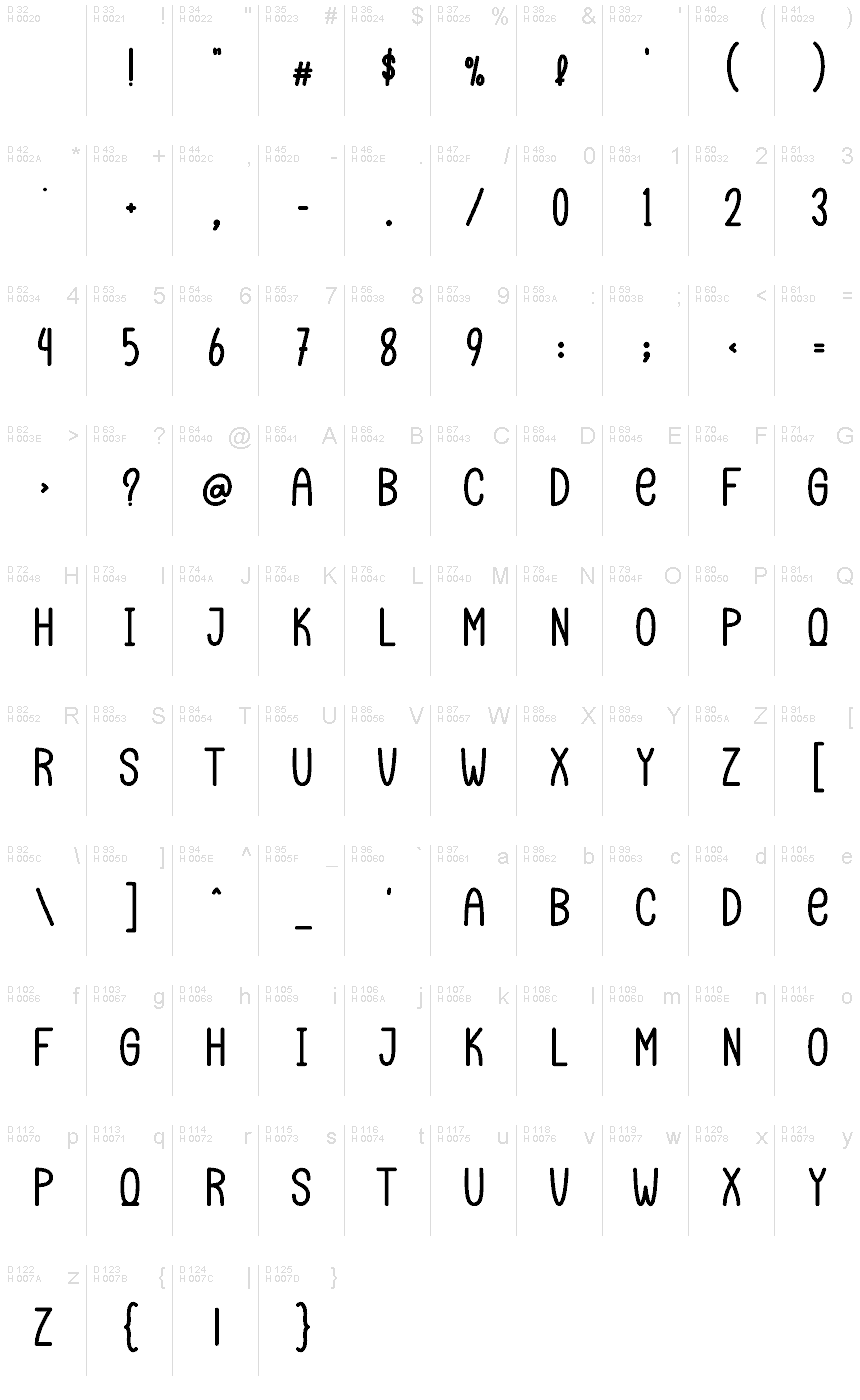
Blue Mountain
Blue Mountain font by Andi Moz is a handwritten masterpiece that combines a casual, whimsical appearance with approachable aesthetics. Its organic shapes and slightly irregular design elements contribute to its charming and handmade feel. This condensed font embodies simplicity and elegance in an informal style.
Sports channel graphics, apparel designs, music album covers, intuitive websites, social media images, sale billboard designs all make solid use cases for this free handwritten font. Blue Mountain is also recommended for product packaging design for cosmetics or fashion brands apart from movie posters and advertising publications.